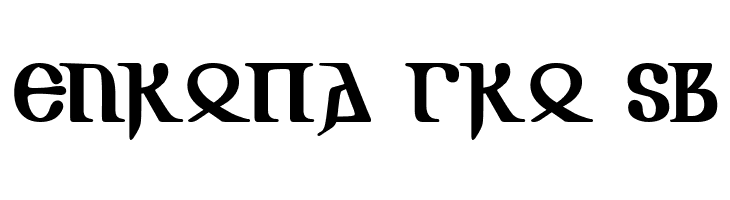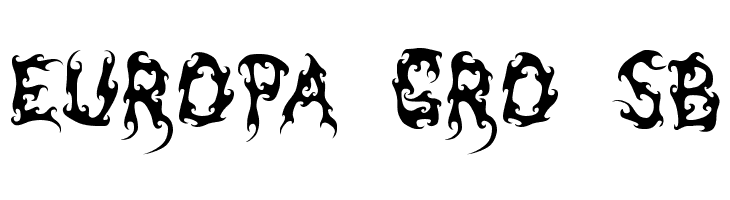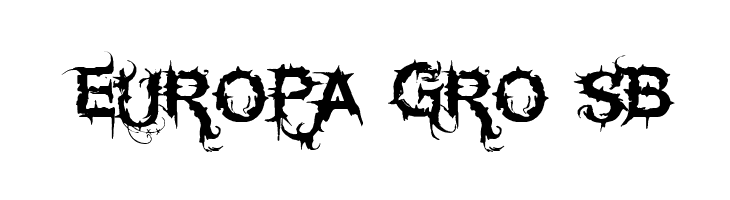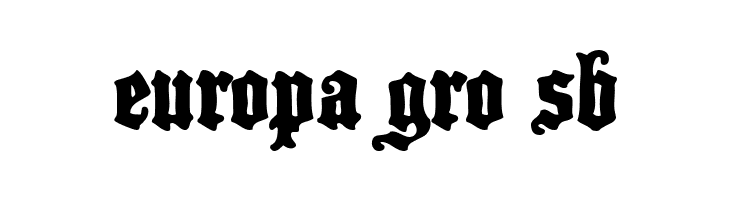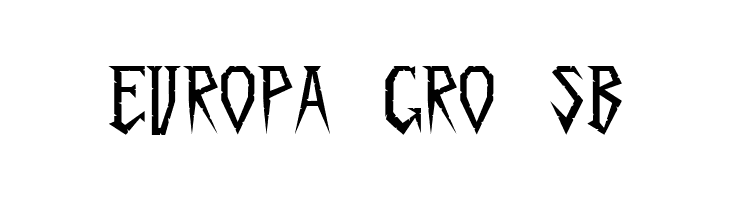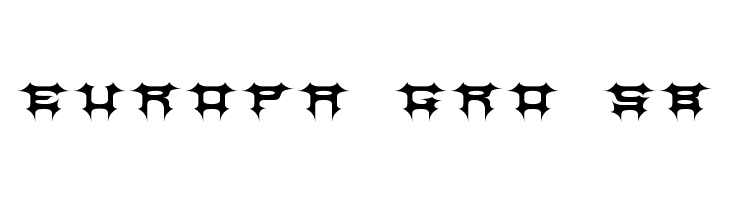
A classic Gothic font with sharp, angular lines and intricate detailing.
A bold, ornate Blackletter font with gothic and medieval influences.
A bold, thorny decorative font with sharp, intricate details.
A bold, Gothic-inspired stencil font with sharp, angular edges.
A bold, medieval-inspired font with intricate details and dramatic flair.
A bold, jagged font with a horror and gothic theme.